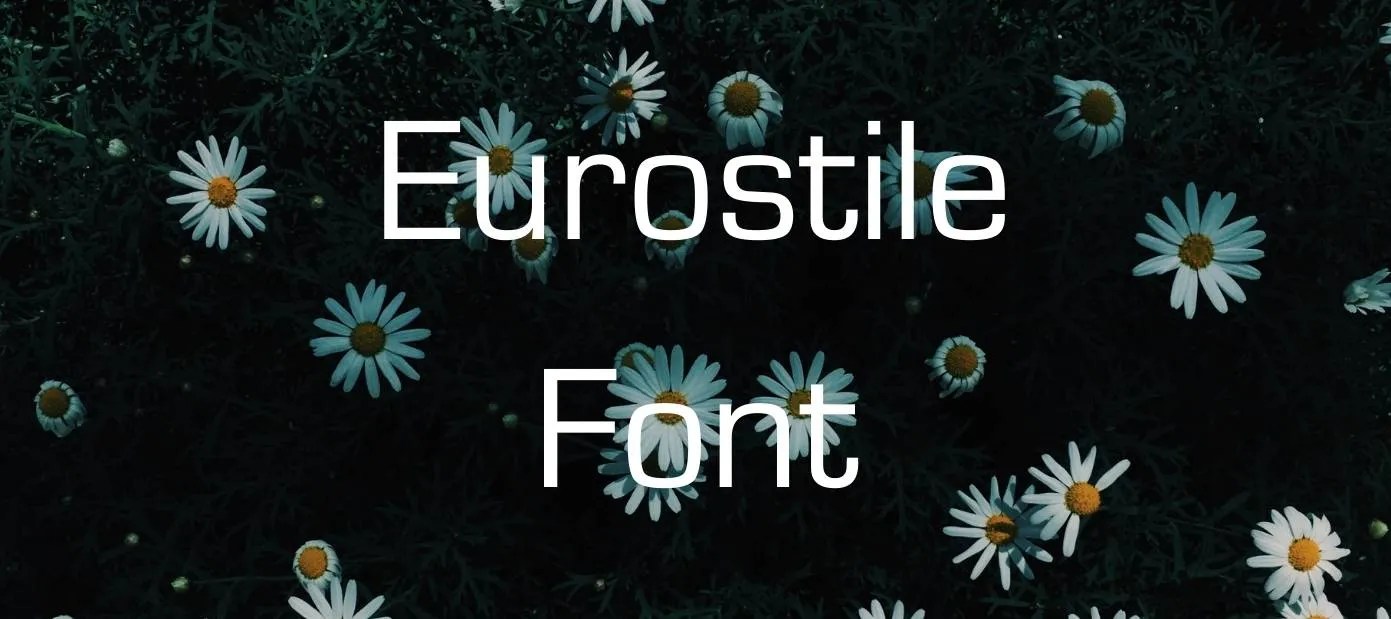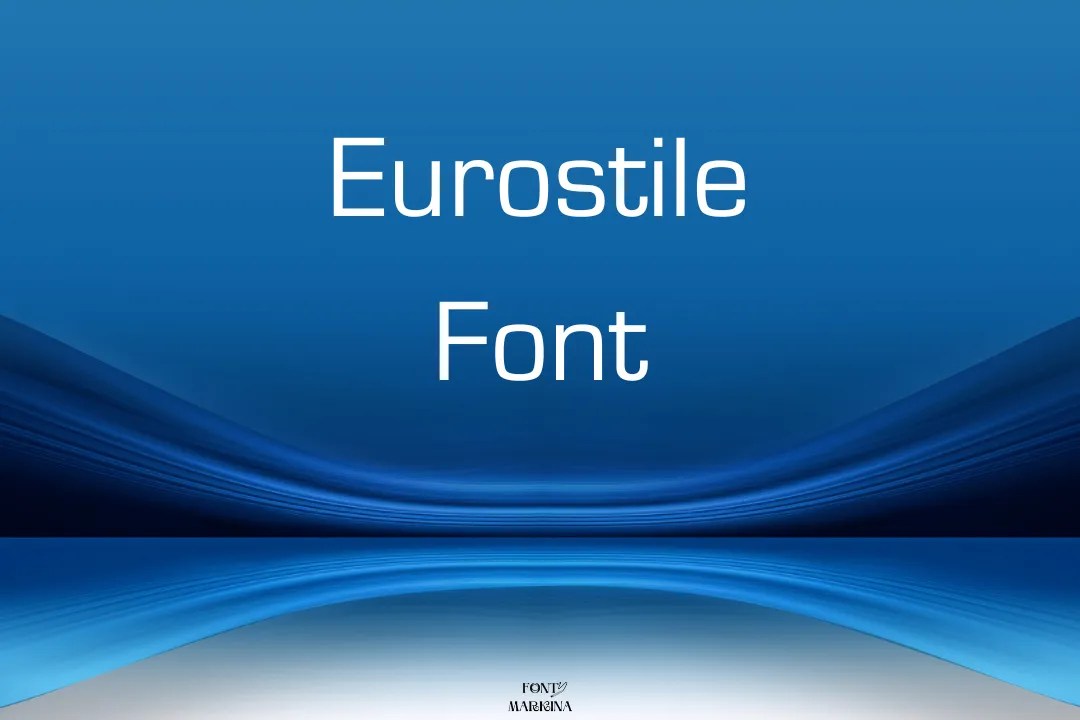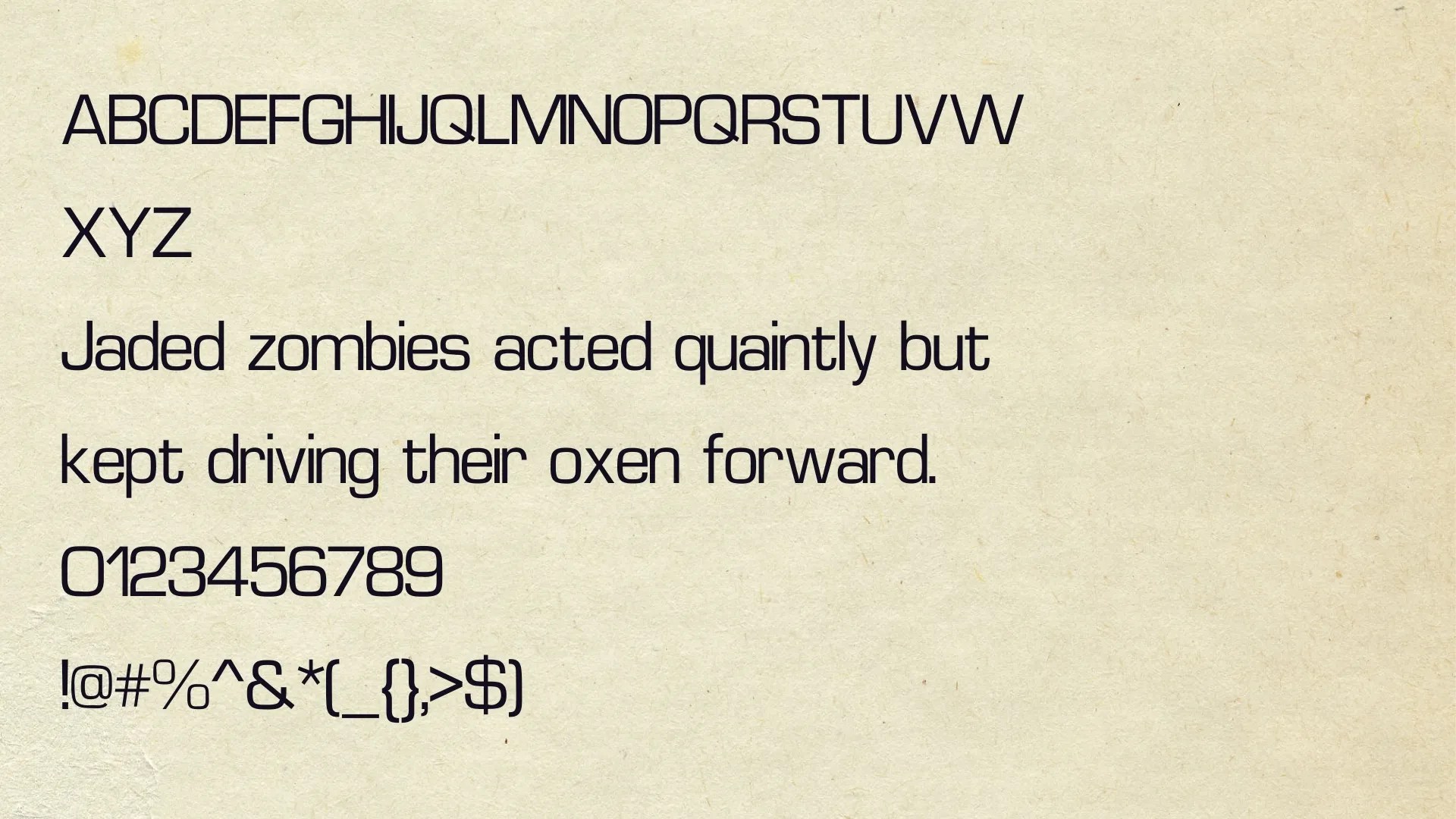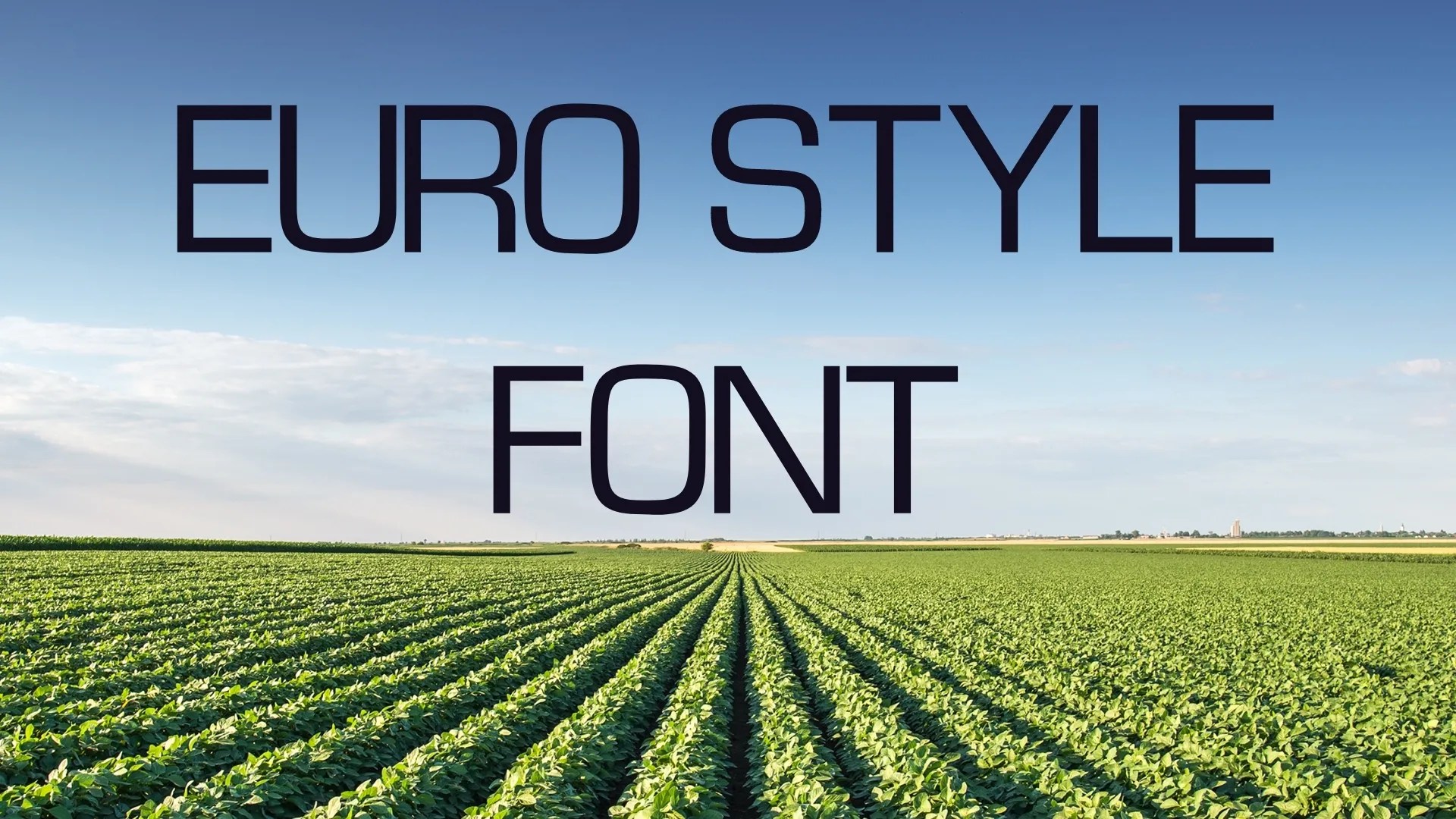
Eurostile Font For Paint . It is based on his earlier font microgramma, which he created in 1952 and contained only uppercase letters. Almost every graphic student has at one time or another tried their hand at a geometrical type. Click to find the best 16 free fonts in the eurostile style. Eurostile display font was developed as a display typeface inspired by the technology of the past, and the cyberpunk. With its bold, futuristic letterforms and clean lines, eurostile exudes confidence and. The eurostile font similar alternative is variable—it allows you to create your own custom width and weight to achieve good legibility. Henju sans (otf) this versatile font has the essence of eurostile. These are just a few of. Every font is free to download!
It is based on his earlier font microgramma, which he created in 1952 and contained only uppercase letters. These are just a few of. The eurostile font similar alternative is variable—it allows you to create your own custom width and weight to achieve good legibility. Almost every graphic student has at one time or another tried their hand at a geometrical type. Henju sans (otf) this versatile font has the essence of eurostile. Every font is free to download! With its bold, futuristic letterforms and clean lines, eurostile exudes confidence and. Click to find the best 16 free fonts in the eurostile style. Eurostile display font was developed as a display typeface inspired by the technology of the past, and the cyberpunk.
Eurostile Font For Paint Almost every graphic student has at one time or another tried their hand at a geometrical type. These are just a few of. It is based on his earlier font microgramma, which he created in 1952 and contained only uppercase letters. Eurostile display font was developed as a display typeface inspired by the technology of the past, and the cyberpunk. Every font is free to download! With its bold, futuristic letterforms and clean lines, eurostile exudes confidence and. The eurostile font similar alternative is variable—it allows you to create your own custom width and weight to achieve good legibility. Almost every graphic student has at one time or another tried their hand at a geometrical type. Click to find the best 16 free fonts in the eurostile style. Henju sans (otf) this versatile font has the essence of eurostile.
Eurostile LT Pro Outline Bold Fonts Eurostile Font For Paint These are just a few of. Almost every graphic student has at one time or another tried their hand at a geometrical type. Click to find the best 16 free fonts in the eurostile style. The eurostile font similar alternative is variable—it allows you to create your own custom width and weight to achieve good legibility. Henju sans (otf) this. Eurostile Font For Paint.
Eurostile Font, HD Png Download kindpng Eurostile Font For Paint With its bold, futuristic letterforms and clean lines, eurostile exudes confidence and. It is based on his earlier font microgramma, which he created in 1952 and contained only uppercase letters. Henju sans (otf) this versatile font has the essence of eurostile. The eurostile font similar alternative is variable—it allows you to create your own custom width and weight to achieve. Eurostile Font For Paint.
Download free Eurostile Bold font EUROSTIB.ttf Eurostile Font For Paint With its bold, futuristic letterforms and clean lines, eurostile exudes confidence and. These are just a few of. It is based on his earlier font microgramma, which he created in 1952 and contained only uppercase letters. Almost every graphic student has at one time or another tried their hand at a geometrical type. Henju sans (otf) this versatile font has. Eurostile Font For Paint.
Eurostile Font Free Download FontsMag Eurostile Font For Paint Every font is free to download! Click to find the best 16 free fonts in the eurostile style. With its bold, futuristic letterforms and clean lines, eurostile exudes confidence and. Henju sans (otf) this versatile font has the essence of eurostile. These are just a few of. It is based on his earlier font microgramma, which he created in 1952. Eurostile Font For Paint.
Eurostile Extended 2 Bold Download for free at Free Fonts Eurostile Font For Paint Eurostile display font was developed as a display typeface inspired by the technology of the past, and the cyberpunk. These are just a few of. The eurostile font similar alternative is variable—it allows you to create your own custom width and weight to achieve good legibility. It is based on his earlier font microgramma, which he created in 1952 and. Eurostile Font For Paint.
Eurostile LT Std Extended 2 font details Eurostile Font For Paint Eurostile display font was developed as a display typeface inspired by the technology of the past, and the cyberpunk. Henju sans (otf) this versatile font has the essence of eurostile. The eurostile font similar alternative is variable—it allows you to create your own custom width and weight to achieve good legibility. Every font is free to download! It is based. Eurostile Font For Paint.
Eurostile Font Free Download Dafont Online Eurostile Font For Paint Henju sans (otf) this versatile font has the essence of eurostile. Every font is free to download! It is based on his earlier font microgramma, which he created in 1952 and contained only uppercase letters. Almost every graphic student has at one time or another tried their hand at a geometrical type. These are just a few of. Eurostile display. Eurostile Font For Paint.
Eurostile Font Fontzaa Exclusive Fonts Library Eurostile Font For Paint Every font is free to download! It is based on his earlier font microgramma, which he created in 1952 and contained only uppercase letters. The eurostile font similar alternative is variable—it allows you to create your own custom width and weight to achieve good legibility. Click to find the best 16 free fonts in the eurostile style. Eurostile display font. Eurostile Font For Paint.
Eurostile Font Download For Free, View Sample Text, Rating And More Eurostile Font For Paint These are just a few of. Henju sans (otf) this versatile font has the essence of eurostile. Every font is free to download! Click to find the best 16 free fonts in the eurostile style. Eurostile display font was developed as a display typeface inspired by the technology of the past, and the cyberpunk. The eurostile font similar alternative is. Eurostile Font For Paint.